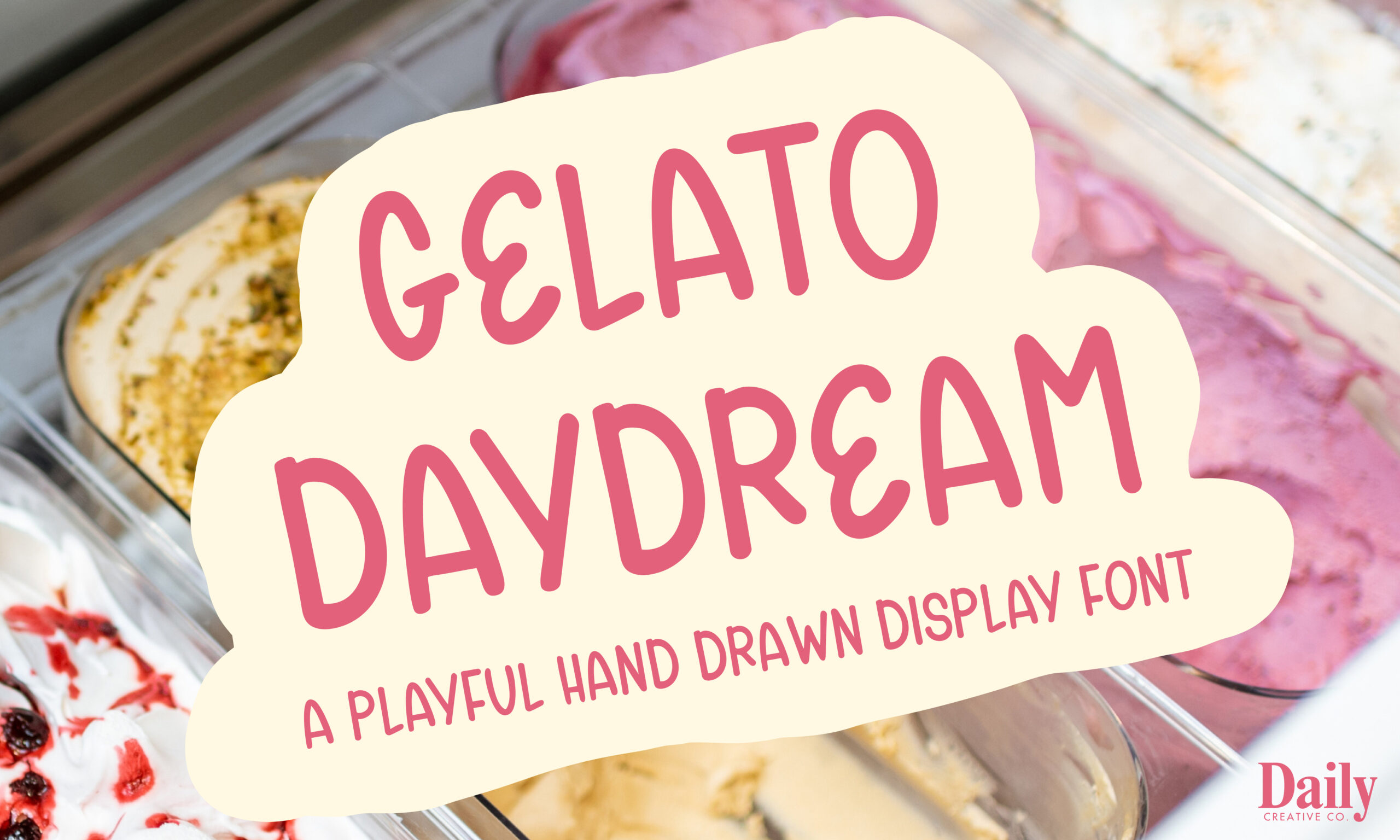
This Type Drop was a little scoop from the studio.
Gelato Daydreams is a playful hand-drawn display font inspired by gelato shop signage, vintage dessert menus, pastel packaging, postcards from vacation, and sweet little storefronts.
I wanted this one to feel sunny, nostalgic, and full of charm. The kind of font that makes you think of soft retro branding, Italian summer colors, café menus, hand-painted signs, and the little type details you would save from a tiny shop window while wandering around on vacation.
It is playful and handmade, but still polished enough to use in real design projects.
A Playful Hand-Drawn Display Font
Gelato Daydreams was made to feel warm, charming, and a little nostalgic.
I love fonts that feel like they have a tiny world around them, and this one definitely does. It has that sweet, vacation-inspired feeling without being too themed or too novelty. It can lean retro, summery, playful, boutique, handmade, or soft and polished depending on how you use it.
It is the kind of display font I would use when a design needs personality right away.
Think gelato packaging, café branding, dessert menus, boutique logos, Italian summer moodboards, Pinterest graphics, social posts, product labels, postcards, invitations, and creative projects that need a little more charm.
I love the idea of giving a small piece of a bigger font world as a Type Drop.
This one was not meant to be the full font family. It was a little demo version of Gelato Daydreams so you could test the style, play with the look, and see how it feels inside your own designs.
Sometimes you do not know if a font is right until you actually use it. You need to type with it, try it in a layout, pair it with other fonts, and see if the mood fits what you are making.
That was the point of this drop. A little piece of Gelato Daydreams to play with before deciding if the full version belongs in your font library.
Gelato Daydreams has a soft retro feel that works especially well for designs that need to feel playful, warm, and creative.
I picture it on a gelato shop menu, a cute café logo, a summer market poster, a pastel product label, a vacation-inspired Pinterest pin, or a tiny piece of packaging that looks like it came from a charming little storefront.
It would also be sweet for birthday graphics, invitations, stationery, social posts, moodboards, and creative business graphics where you want the type to feel handmade but still intentional.
This is the kind of font that can become the main moment in a design. You do not need to overdo it. Let the font carry the personality, then pair it with something simple and clean so the whole layout has room to breathe.
The thing I loved most about this Type Drop was that it felt like a small preview of the whole Gelato Daydreams world.
Not just a font file. More like a tiny peek at the mood behind it.
The colors, the signage, the dessert shop feeling, the vacation postcards, the nostalgic packaging, the handwritten charm. All of that was part of the direction behind the font, and the demo drop was a way to share a little bit of that with you.
If you are someone who loves fonts, typography, handmade details, and design resources that feel like they belong to a bigger creative world, this is exactly the kind of Type Drop I love making.